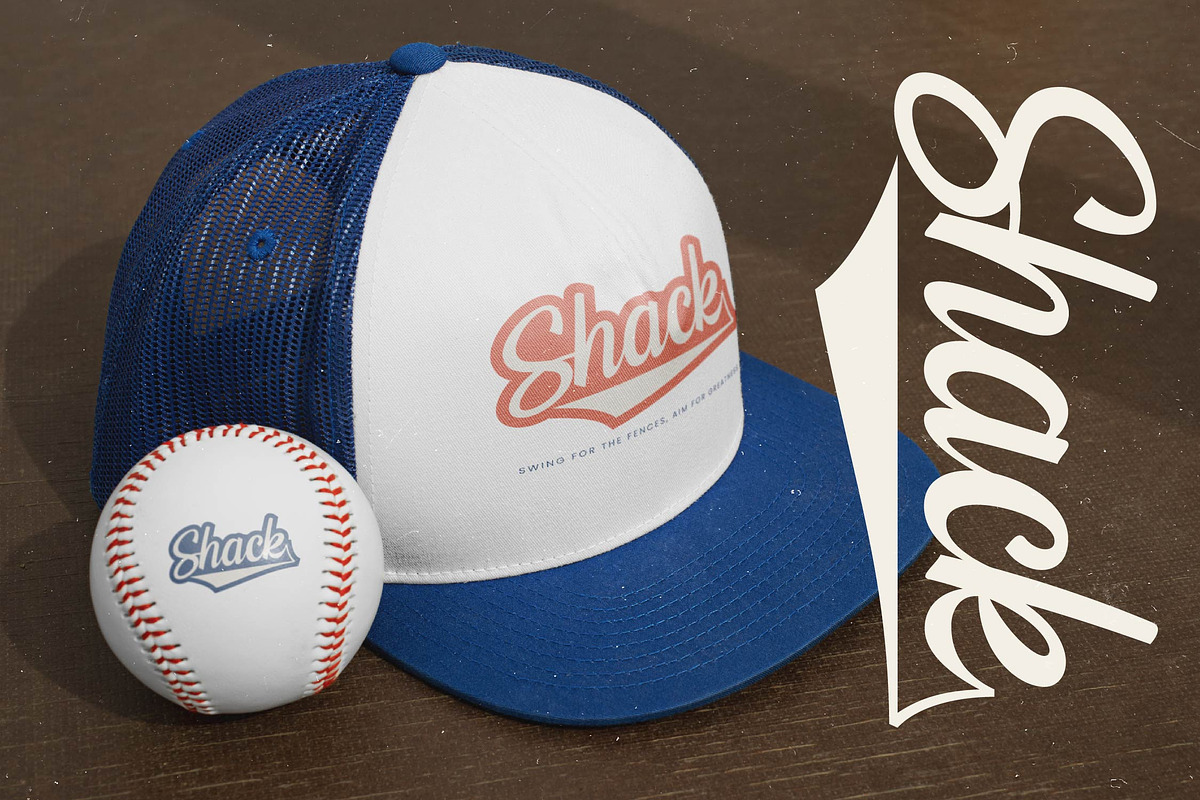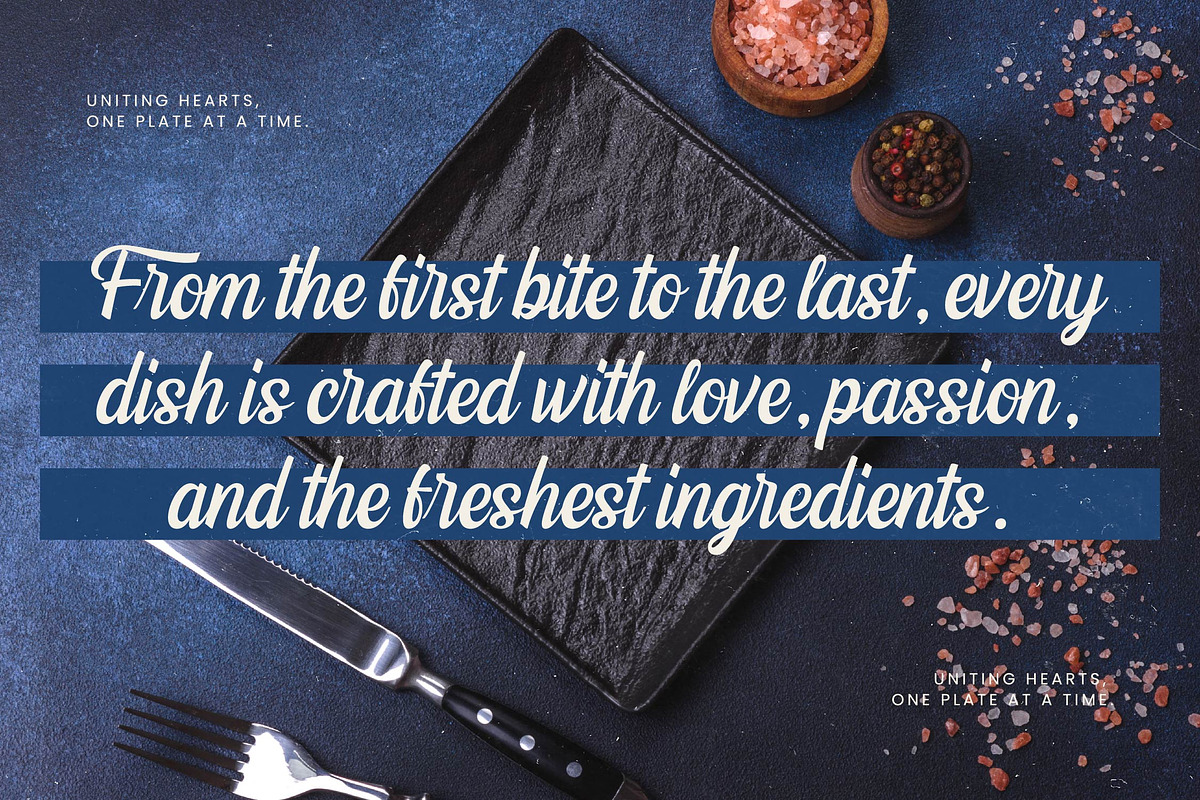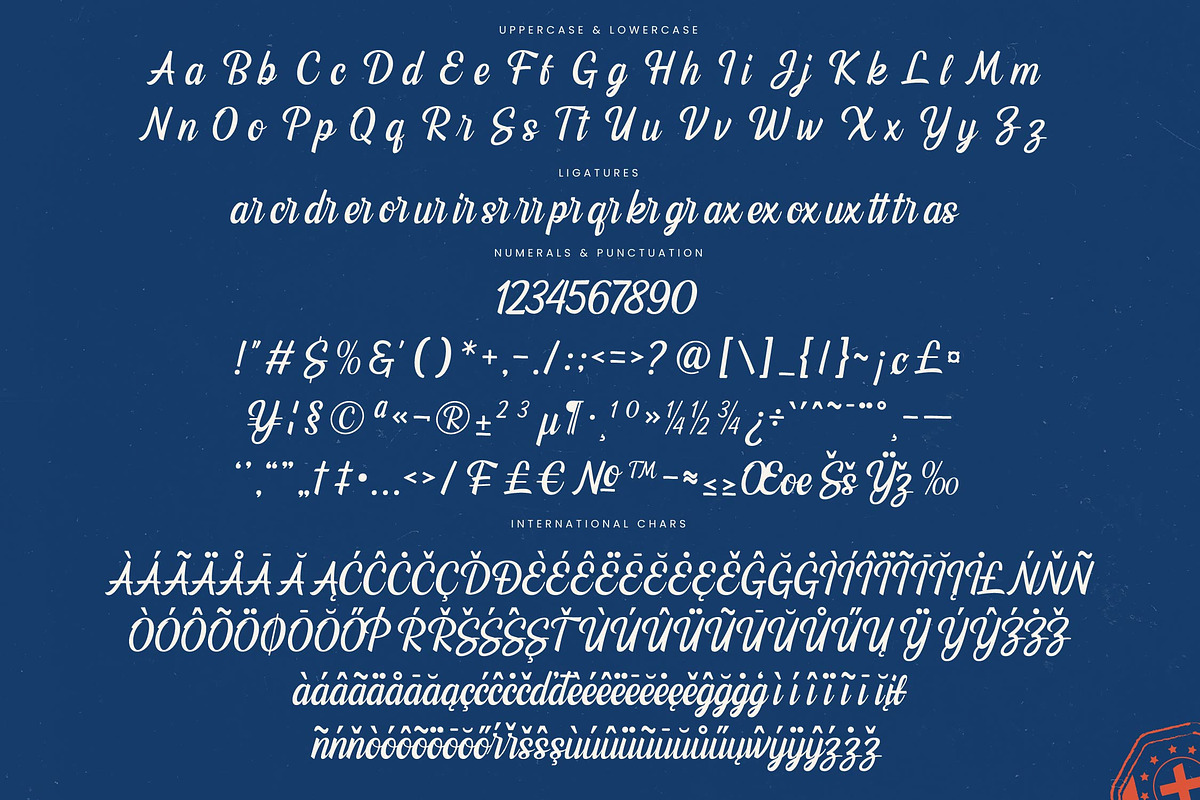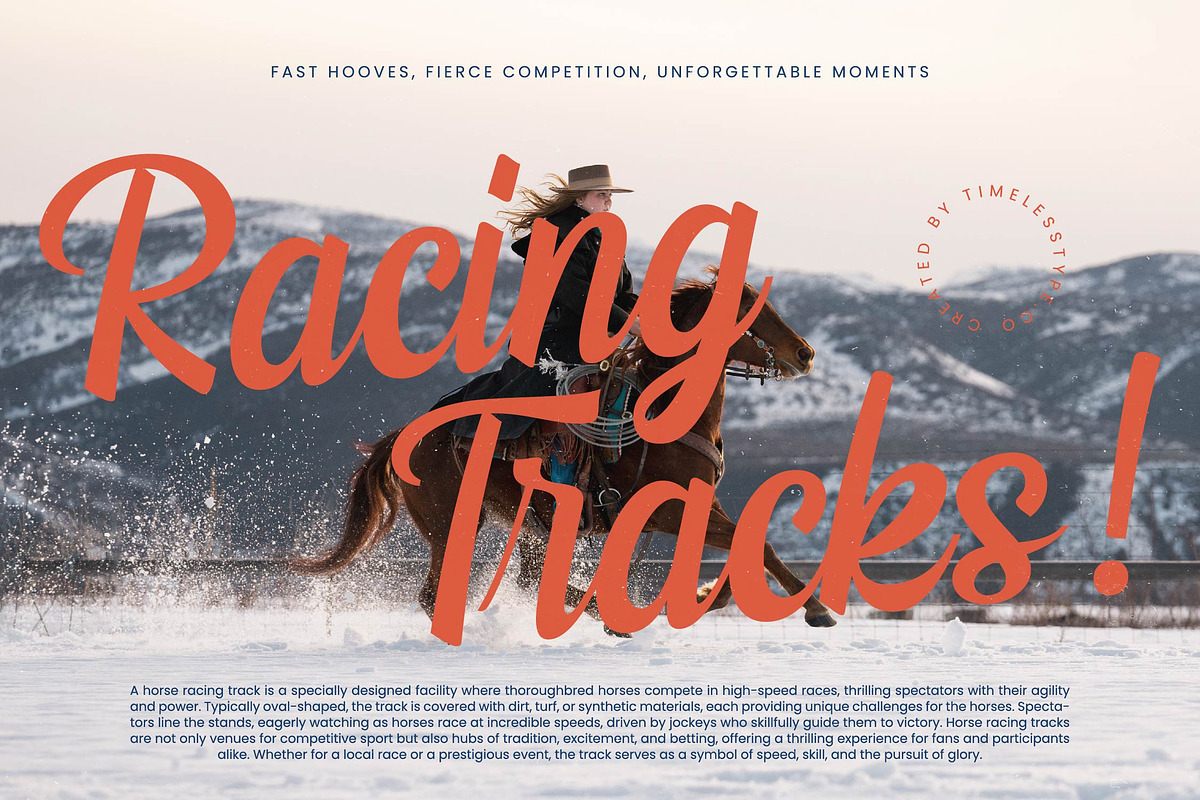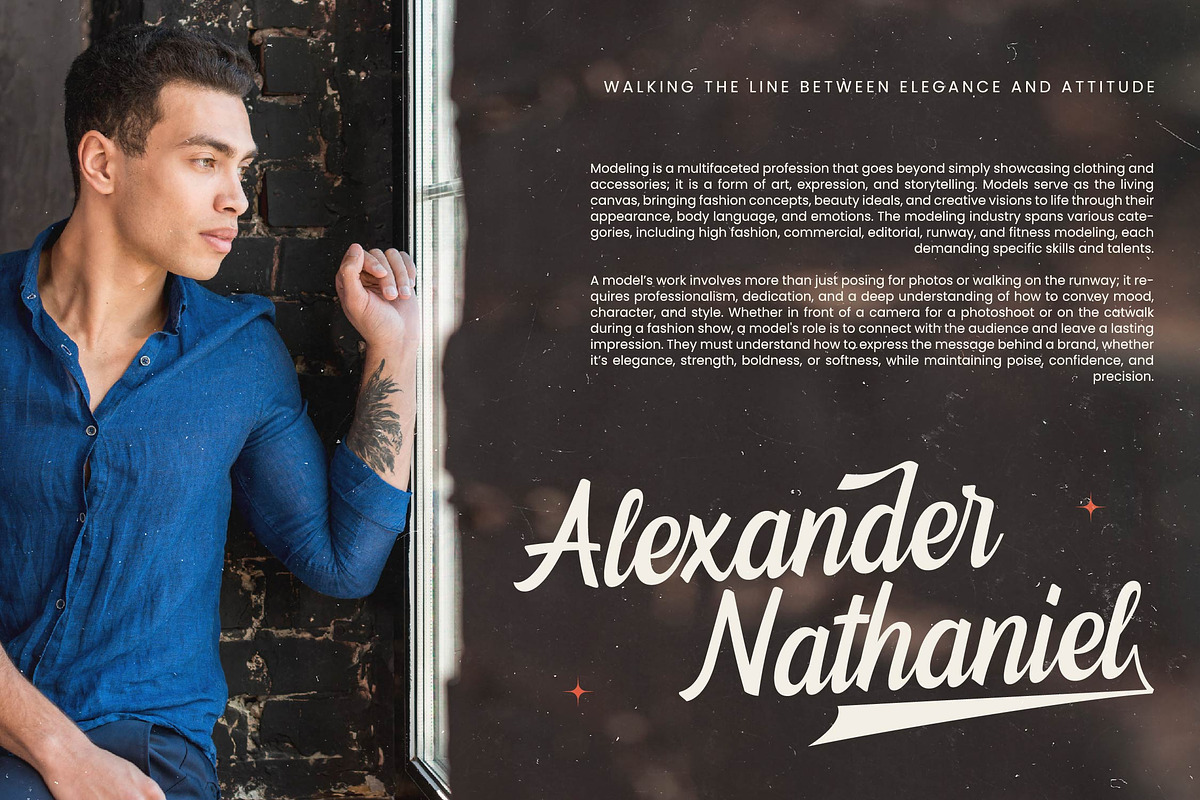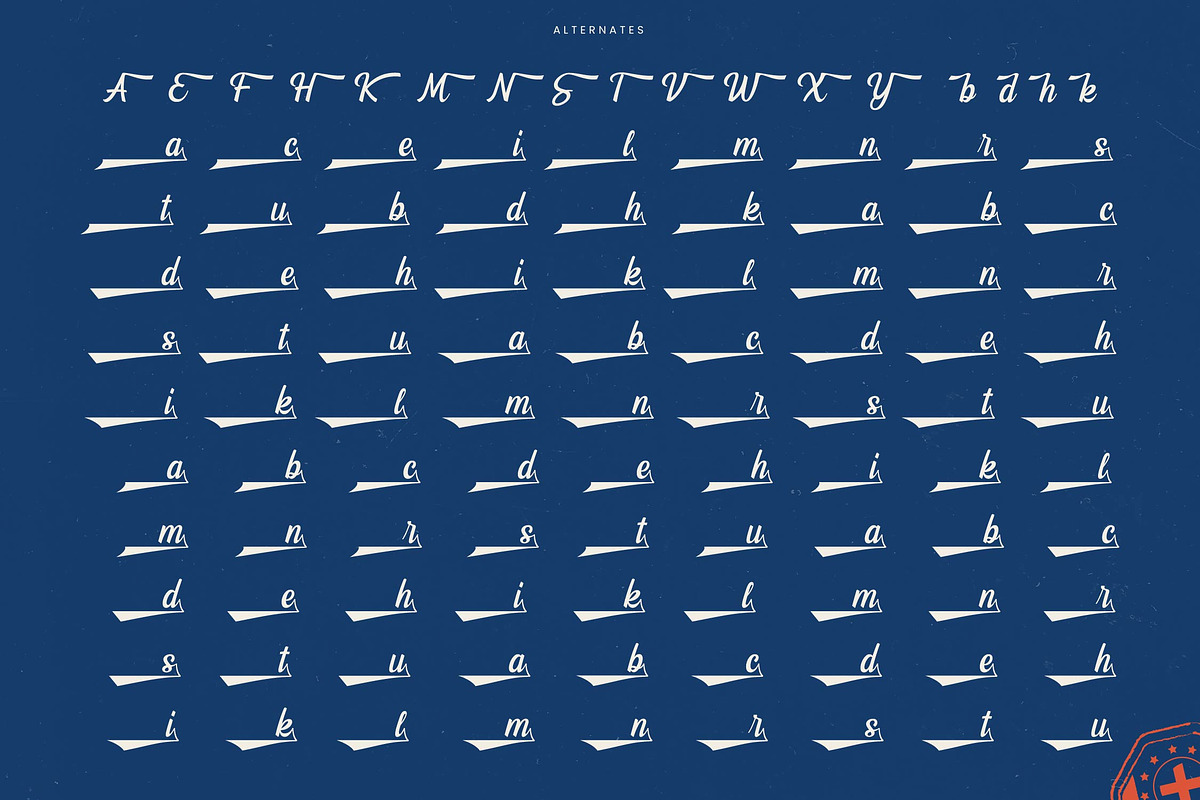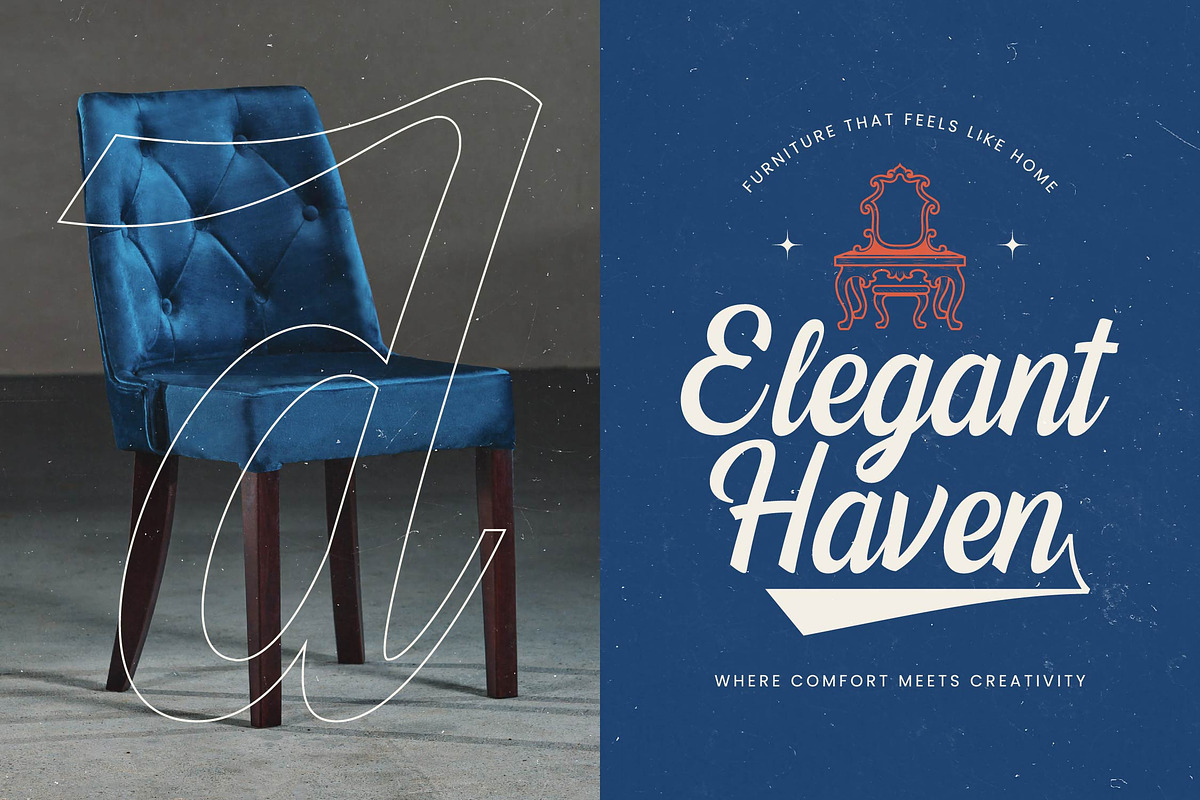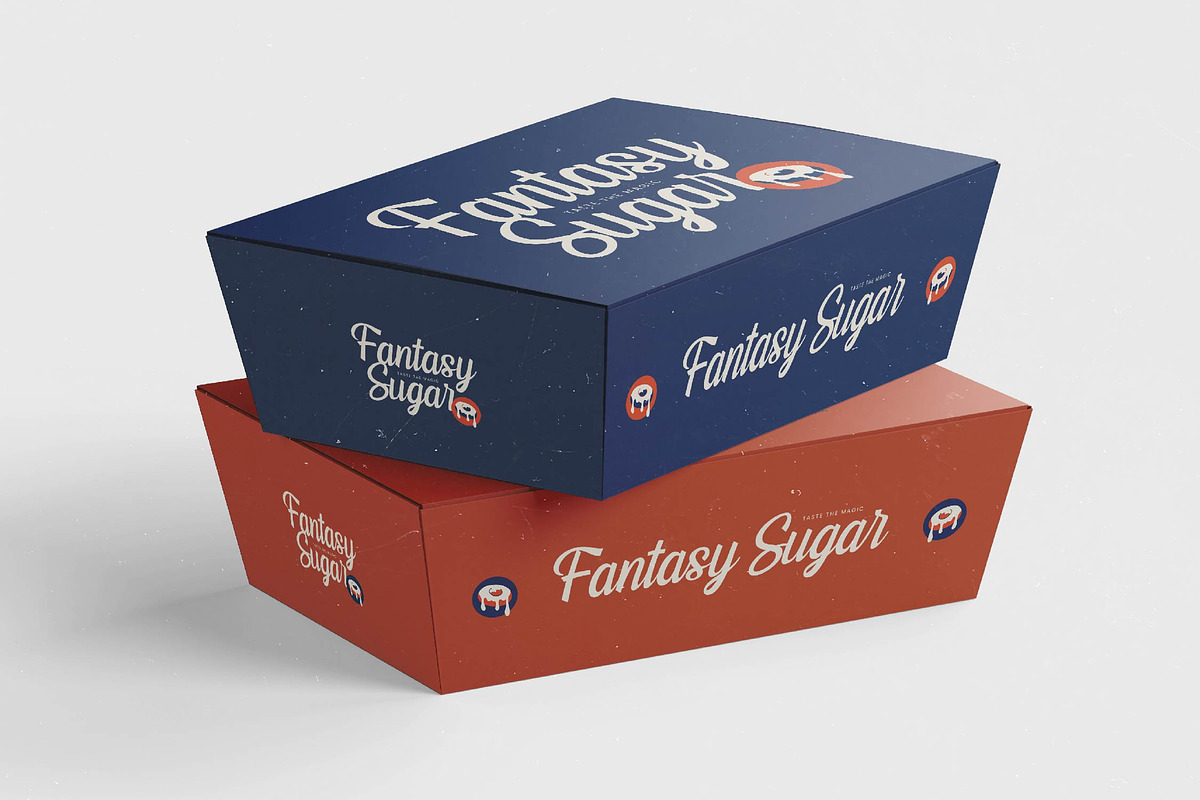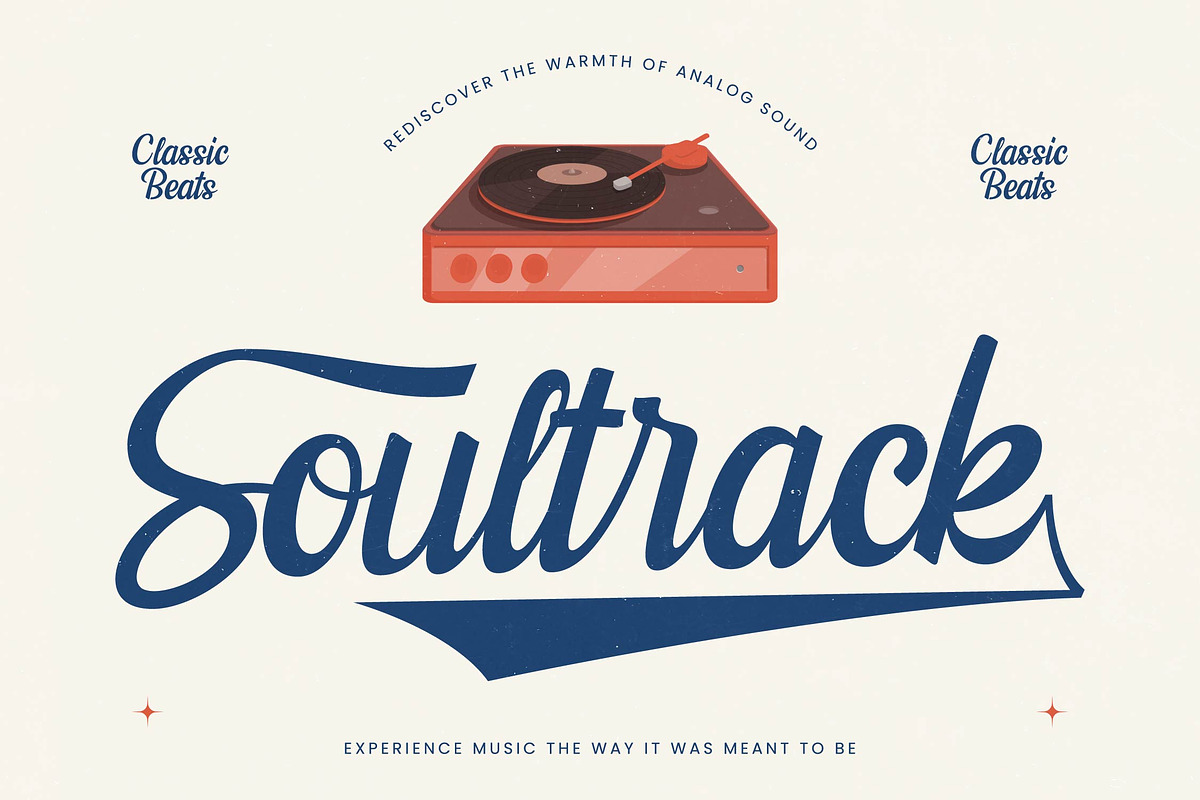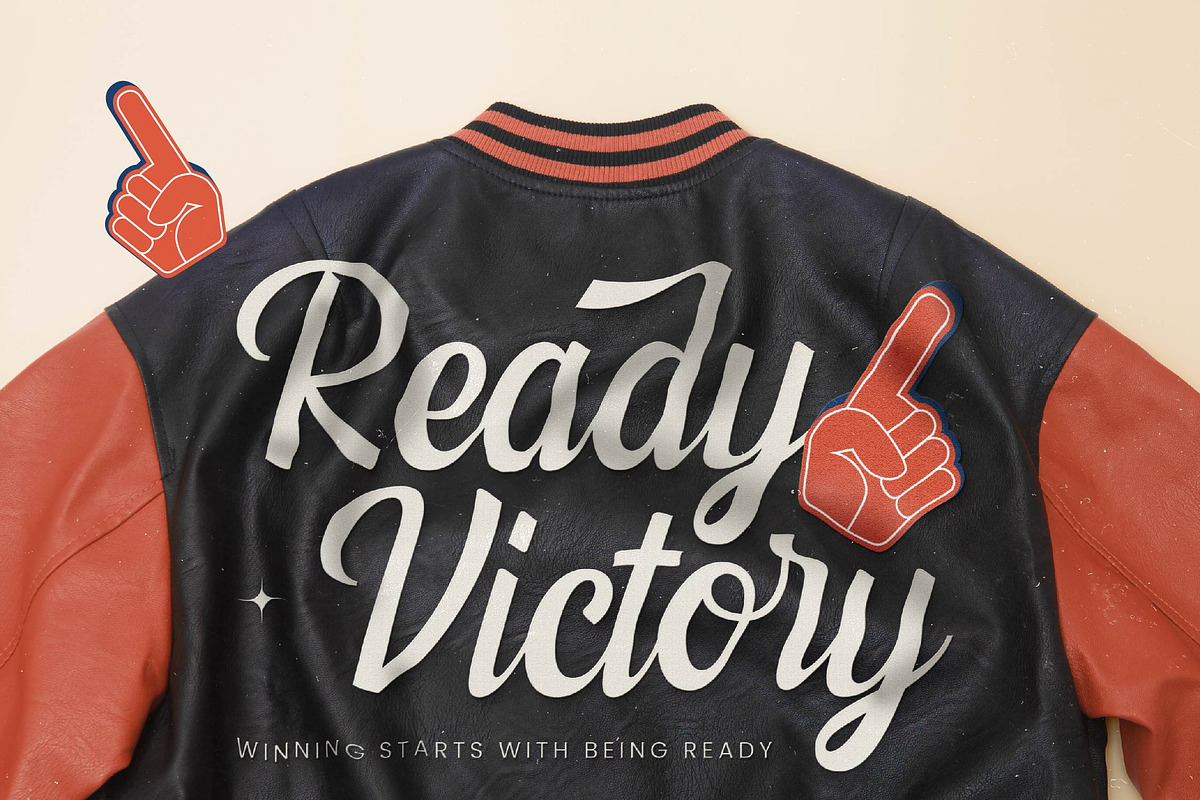
Finland Retro Script Logotype
Finland captures the soulful essence of classic hand-lettering, blending vintage charm with a contemporary edge to make your designs truly stand out. This versatile typeface is more than just a font; it is a statement of craftsmanship and timeless style for the modern creator.
Inspired by the golden era of collegiate athletics and mid-century sign painting, this font evokes a sense of nostalgia for handcrafted team logos and varsity jackets. It channels the raw energy of stadium cheers and the refined touch of traditional calligraphy into a single, cohesive alphabet.
The personality of this typeface is bold and rhythmic, offering a modern serif display feel through its structured curves that provide a sense of luxury typography. It functions as a high-contrast serif alternative that works perfectly as an editorial font for projects requiring a massive branding impact.
Riding the wave of the modern serif trend, this typeface brings a fresh perspective to editorial display fonts by merging athletic aesthetics with flowing lines. It is the epitome of character-driven typography, ensuring your brand message is delivered with an authentic and unmistakable voice.
Ideally suited for high-impact logo design and comprehensive branding, it also excels in high-end editorial contexts. It is a premier choice for product packaging, elegant wedding stationery, and contemporary fashion lookbooks needing a touch of retro flair.
This professional package is loaded with technical features including over 20 unique ligatures and 107 stylistic alternates with decorative swashes. It also includes comprehensive multilingual support and a full suite of international characters to ensure global compatibility for all your creative projects.
- Ligature 20 Alternate 107